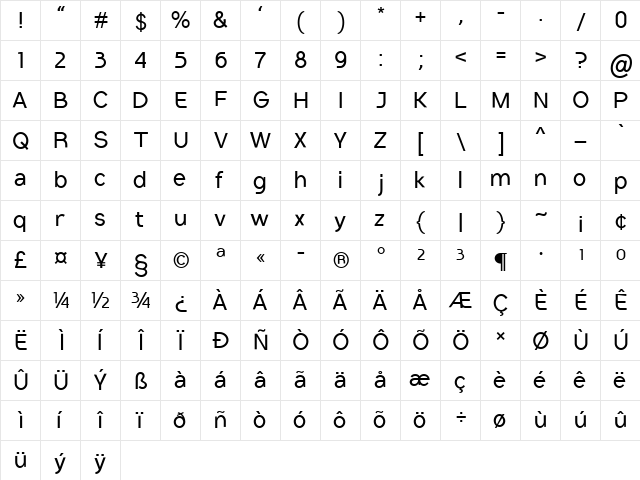
Conceptual Progressive Regular
Design Context for Conceptual Progressive Typeface
Conceptual Progressive takes a measured approach to typography — its balanced proportions and neutral character make it a reliable workhorse for both digital and print work.
Pro Tip: Use Conceptual Progressive in both headline and body roles to test its range before committing to a single application.